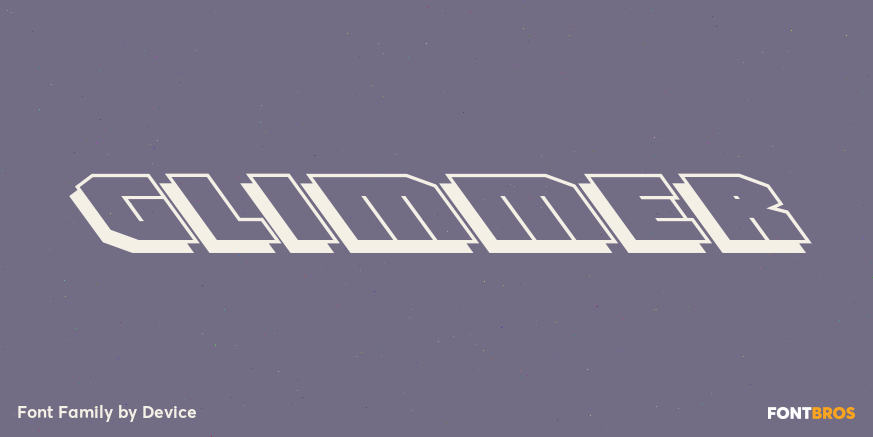
HomeFont BrosGroovy (1966-1978)Glimmer Groovy (1966-1978)Sans Serif Glimmer FacebookXPinterestWhatsApp 1 of 1 About Glimmer A backslanted outline font with a drop shadow and a glossy variant.  DOWNLOAD ON FONT BROSThis font is sold and delivered by Font Bros. Font Canyon may earn a commission if you buy through this link. People also explored Santiago Vincent Font Amboera Script Font Rosengarten Soulmate Font Sometime Font Goodbye Font Swordmeld Font Retro Mango Font Monthana Chist Font 252 0 TagsGlimmerGlimmer Font Previous articleFluffy Slacks BTNNext articleBangbang LEAVE A REPLY Cancel reply Comment: Please enter your comment! Name:* Please enter your name here Email:* You have entered an incorrect email address! Please enter your email address here Website: Save my name, email, and website in this browser for the next time I comment. Personal Use Free Aelten Personal Use Free Read more about this font Creativo Personal Use Free Read more about this font Fontmageddon Personal Use Free Read more about this font Zero Hour Personal Use Free Read more about this font BLOG Best Fonts for T-Shirt Design – Top 2025 Picks In 2025, t-shirt design has become more than just fashion—it's a form of self-expression. Whether you're... To increase your work productivity, choose the most readable fonts. The 10 Best Handwriting Fonts to Add Personality to Your Designs Using Fonts in Digital Marketing: Tips to Strengthen Your Brand Identity